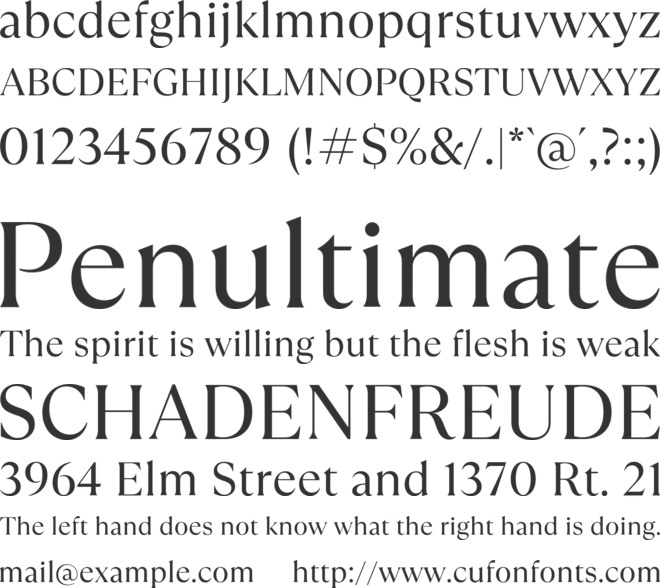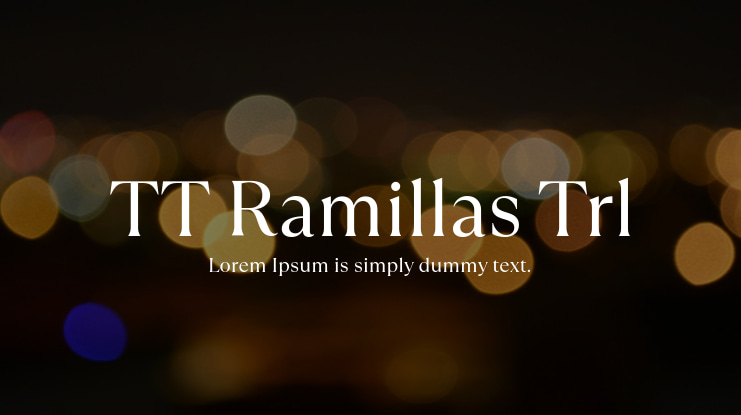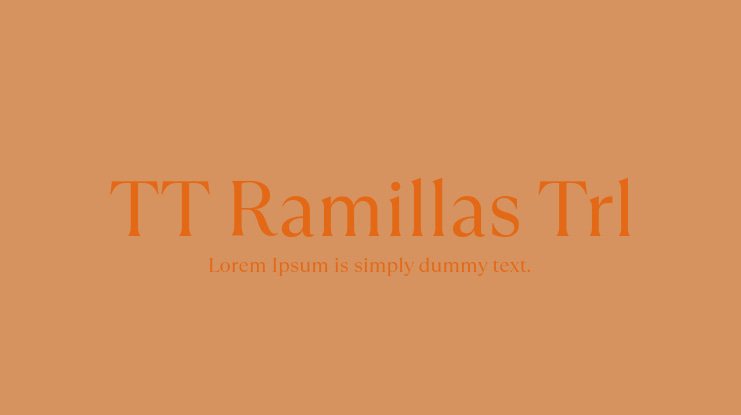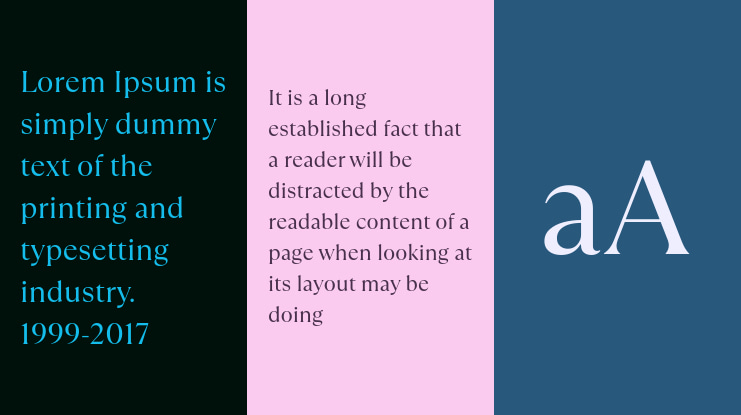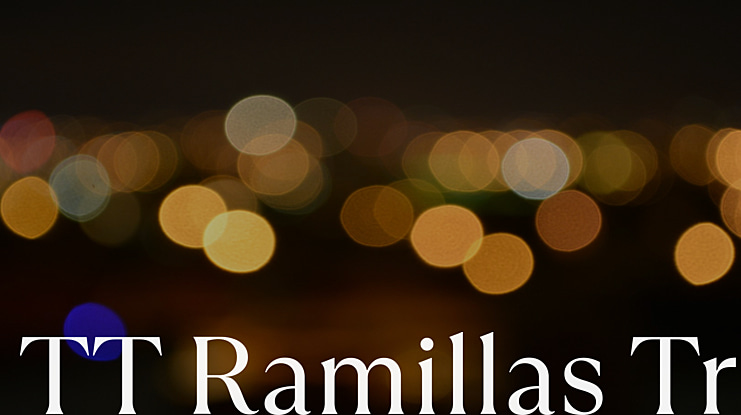
TT Ramillas Trl Font Family
TypeType
TT Ramillas is a fully reconsidered high contrast transitional serif, which is perfectly adapted to modern realities and requirements.
This font is perfect for use in magazines, in the fashion industry, in the branding of premium goods and services.
TT Ramillas is quite versatile and suitable for use both in headings and in text arrays. In addition, we have done manual hinting in the typeface, and now it can be used with a clear conscience in the web and applications.
TT Ramillas Trl font has variable features, including the following styles: ExtraLight, Light, Regular, Medium, Bold, ExtraBold, Black.